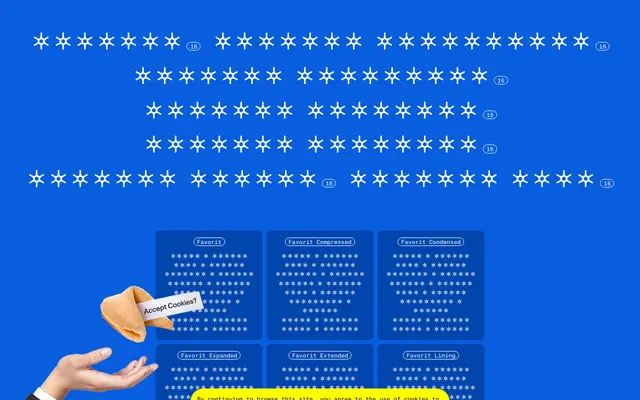
Favorit
A low-contrast grotesque from Dinamo with geometric rigidity offset by deliberate oddities, available across seven sub-families and ten scripts.
Dinamo's Favorit pairs clean geometric structure with subtle quirks — alternate forms for the ampersand, R, a and y among them — giving it personality without eccentricity. The family spans eight weights with italics throughout, extends into Compressed, Condensed, Expanded and Extended widths, and includes Favorit Lining, a variant with a smart built-in underline that merges descenders and connects words. Global coverage reaches ten scripts including Arabic, Hangul and Devanagari, and a variable font version handles slant, width and weight in a single file.
A low-contrast grotesque with geometric construction and subtle idiosyncratic details, placing it firmly in the grotesque sans-serif tradition with humanist inflections.